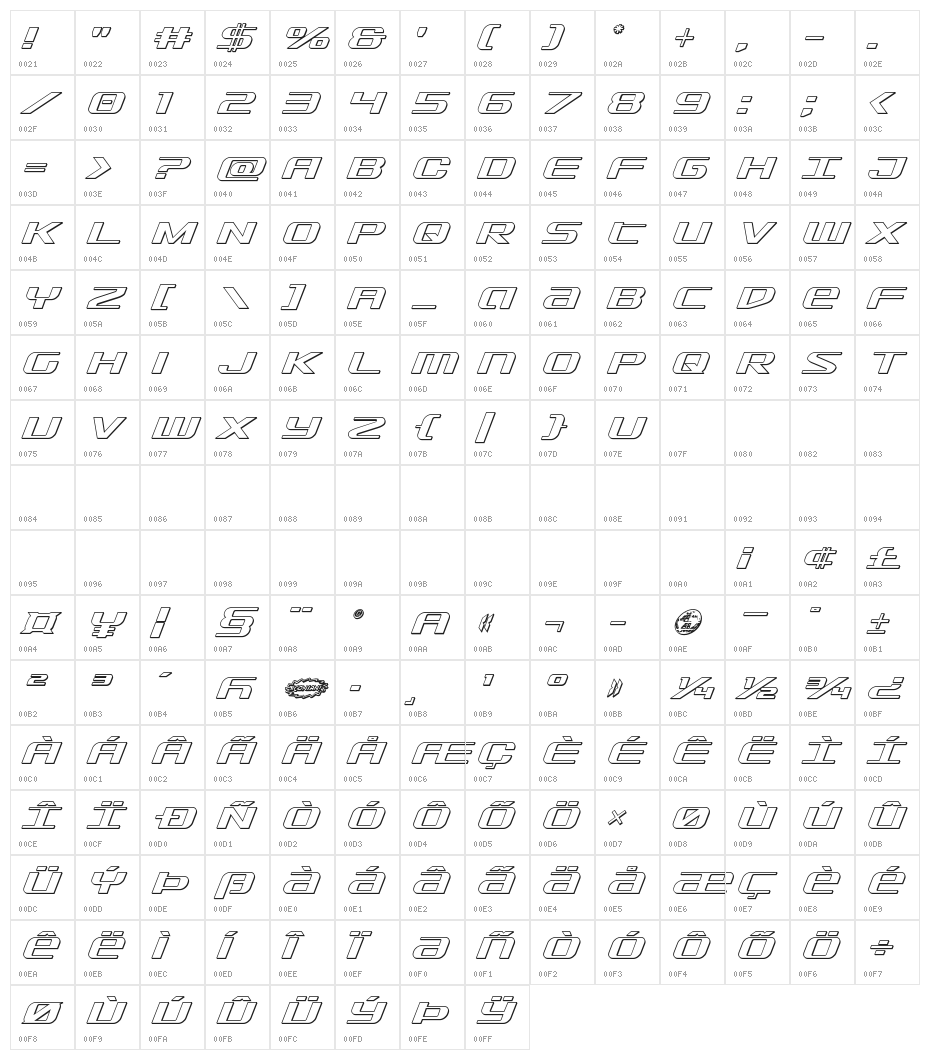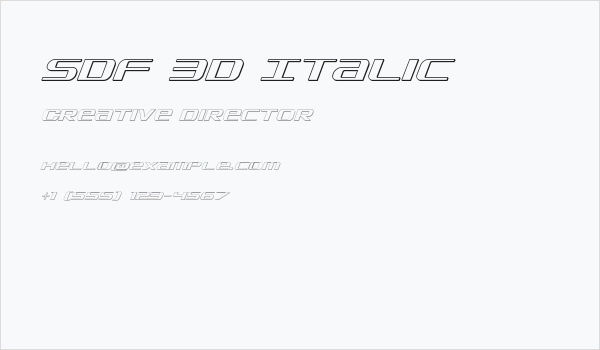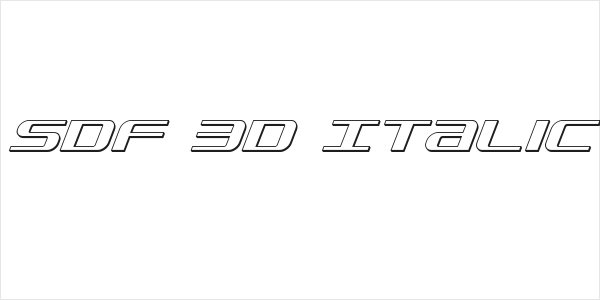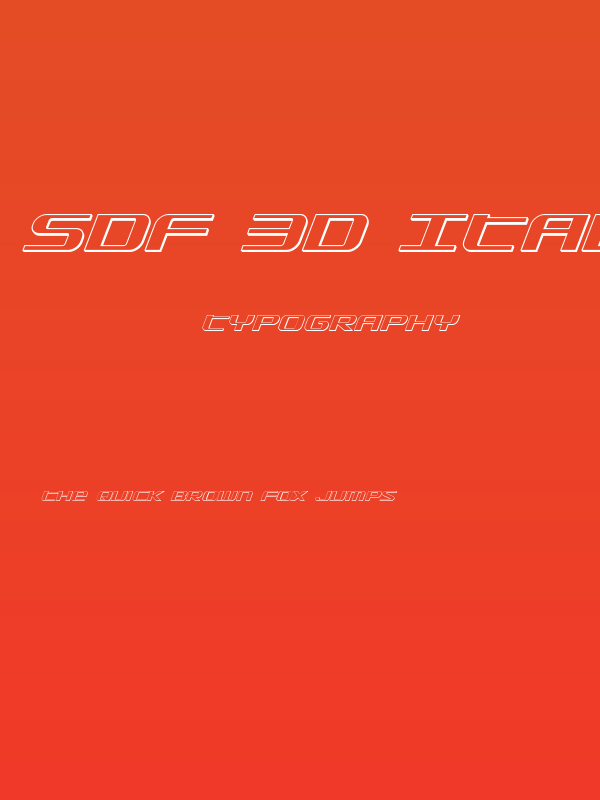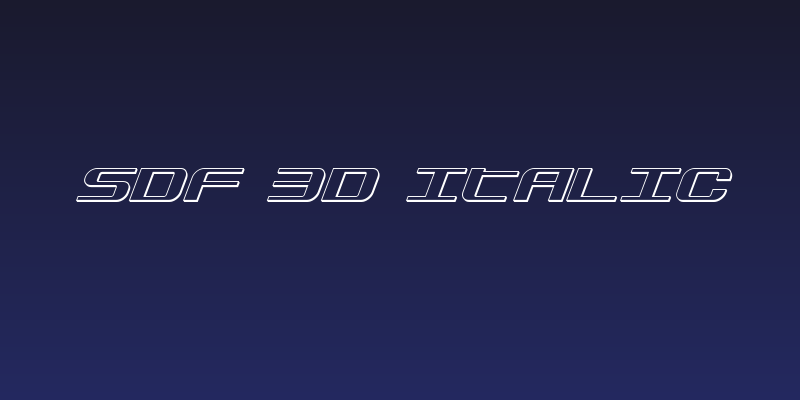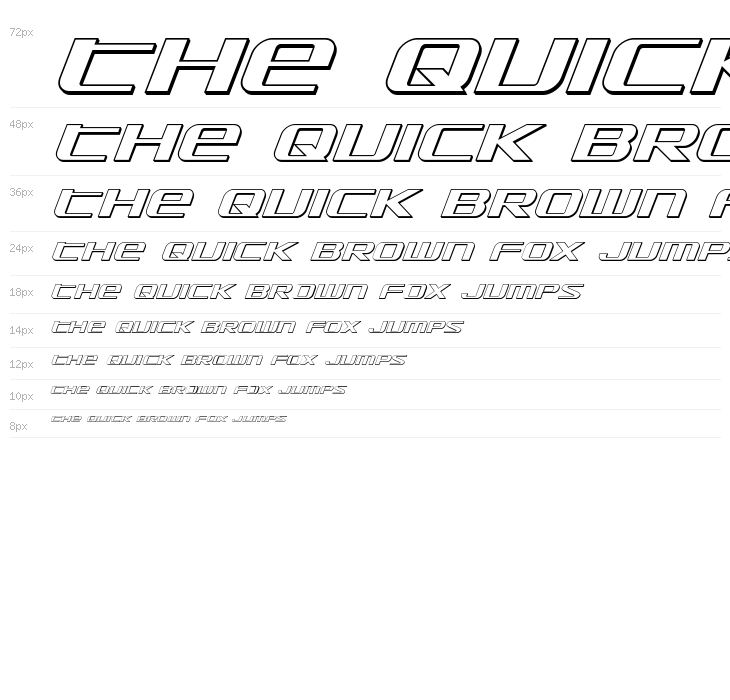
SDF 3D Italic Font
SDF 3D Italic Description
This font features a modern, three-dimensional design with italicized characters that give a sense of movement and depth. The uppercase and lowercase letters are consistent in style, with clean lines and a geometric structure. The numerals and special characters maintain the same aesthetic, ensuring uniformity across all glyphs. The font's outline style adds a unique touch, making it stand out in various design contexts. Its futuristic appearance makes it suitable for projects that require a contemporary and dynamic look.
| Proposed Projects | Ideal for technology branding, sci-fi themed designs, video game titles, and modern advertising campaigns. |